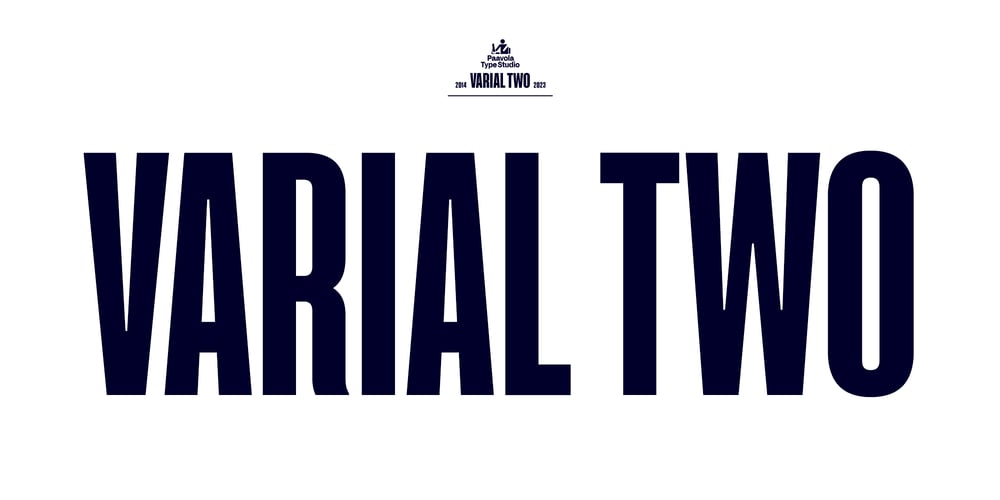
Varial Two Font Family was designed by Jani Paavola and published by Paavola Type Studio. Varial Two contains 16 styles and family package options. Varial Two typefaces are new and updated versions of Varial family created 2014: Extra-condensed Opentype™ sans-serifs with small caps, extended character set (european languages support) and extra features (fractions, ligatures and alternatives).Varial Two is versatile in all design applications, for example all headlines, display use, infographics and more!